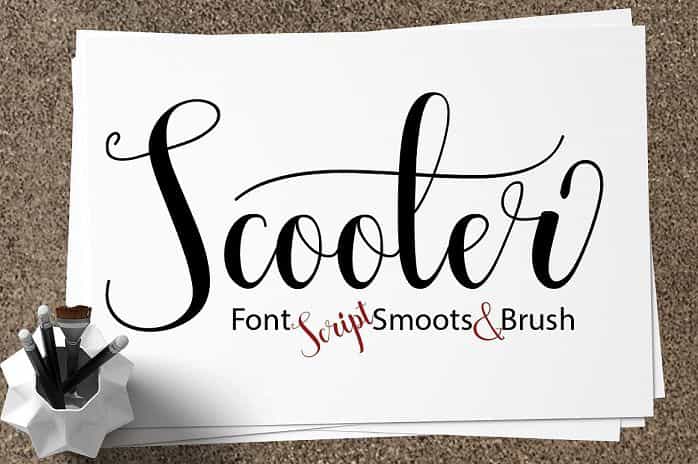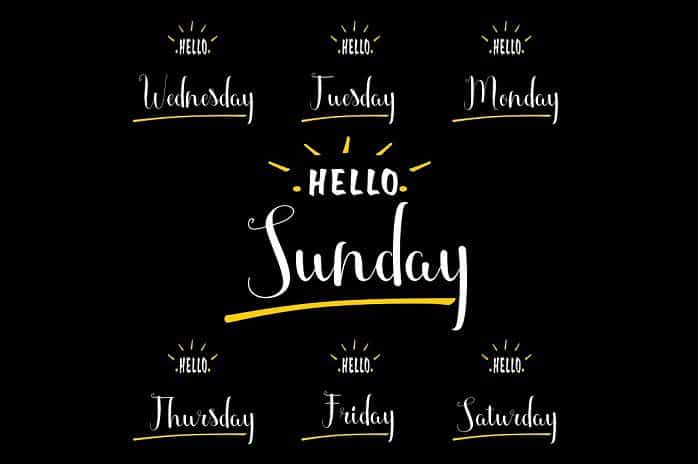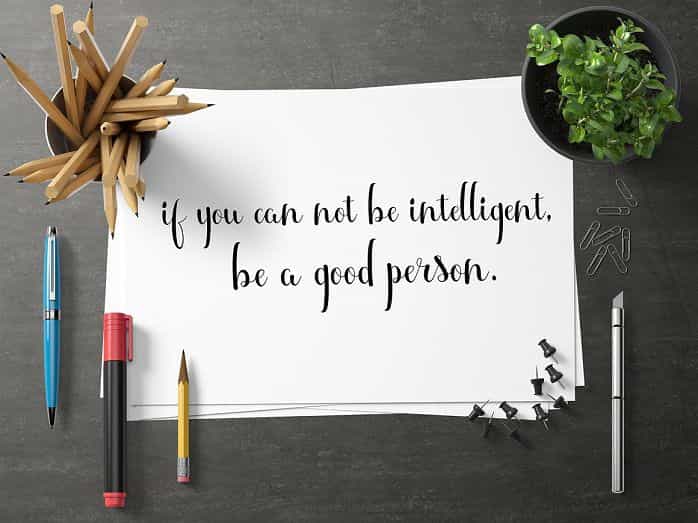
Introducing Scooter Font. Scooter Modern Calligraphy. This font was created by handwriting, and it has a modern and unique forms of calligraphy. The writing style is very natural. Can be applied for a lot of things. the same as headings, logos, wedding invitations, t-shirts, letterheads, signage, labels news, posters and badges.